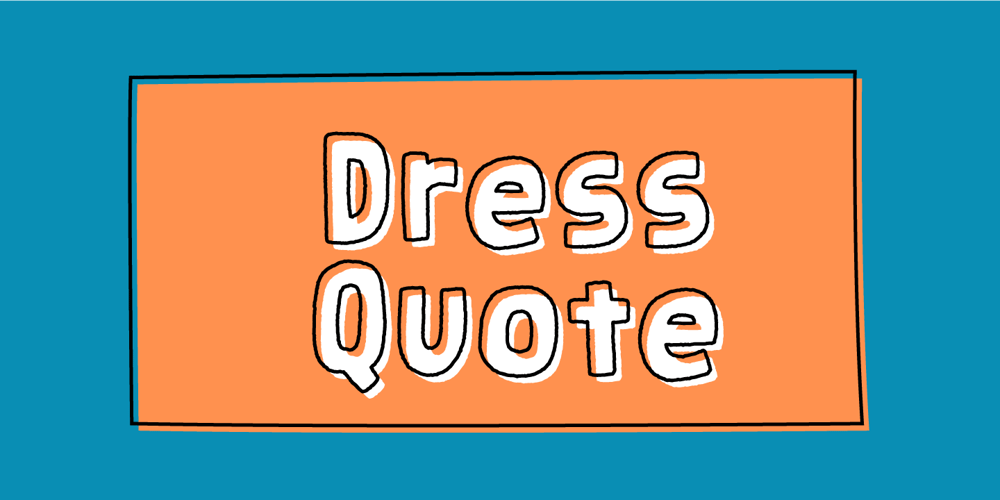
Dress Quote Font Family was designed by Jakob Fischer and published by PizzaDude.dk. Dress Quote contains 2 styles and family package options. Dress Quote is obviously a wordplay – and I did my best to be funny, coming up with that name. I also did my best to do a funny font. I’ll let you be the judge of my success – but personally I am satisfied with my performance in both cases! :)The Regular version is a set of steady, yet kind of rugged letters, while the Outline version is … well, the same kind og rugged letters in an outlined version! :)Multilingual support is included!